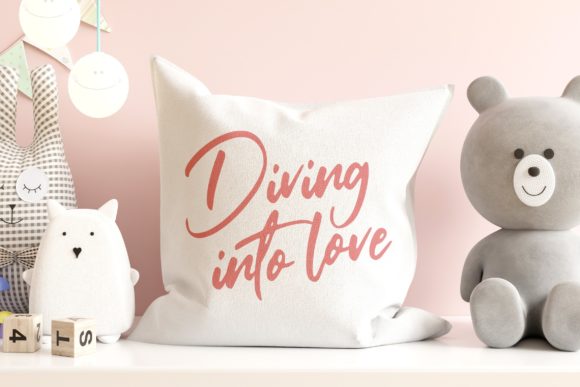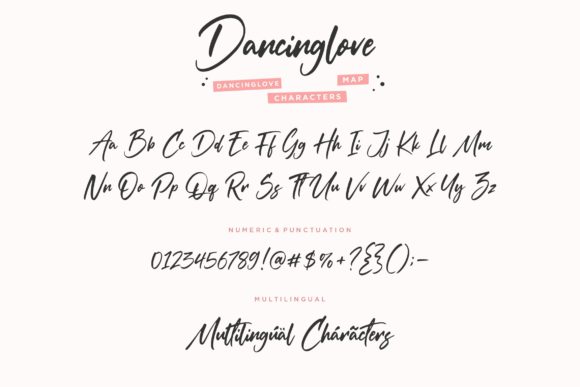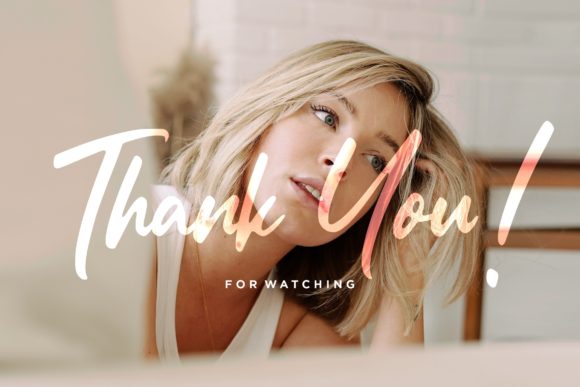
Introduction to Dancinglove Font
As designers, we’ve all had those moments when we stumble upon the perfect font for our creative project. It’s like the missing piece to a puzzle, and suddenly everything falls into place. For me, that moment came when I discovered the Dancinglove Font. This elegant handwritten font is a game-changer for any design project that requires a touch of personality and whimsy.
| 📌 Product Name | Dancinglove Font |
| 👤 Author | Balpirick |
With its beautiful, flowing script, the Dancinglove Font is perfect for adding a personal touch to wedding invitations, thank you cards, and other special occasion designs. Its high-quality design makes it a valuable resource for designers, and the fact that it can be downloaded for free is just the icing on the cake.
Whether you’re working on a high-end branding project or a simple greeting card, the Dancinglove Font is sure to bring a touch of sophistication and elegance to your design.
Key Features of Dancinglove Font
- High-quality design: The Dancinglove Font is a unique and stylish font, perfect for creative projects that require a touch of elegance and sophistication.
- Transparent background: The Dancinglove Font features a transparent background, allowing users to easily layer it over other design elements and create a seamless look.
- Large character set: The Dancinglove Font includes a large character set, including uppercase and lowercase letters, numbers, and special characters, making it suitable for a wide range of creative projects.
- High resolution: The font is designed at a high resolution of 300 DPI, ensuring that it looks crisp and clear on both digital and print materials.
- Perfect for creative projects: The Dancinglove Font is ideal for designers, artists, and creatives who are working on projects that require a unique and stylish font, such as logos, branding materials, and marketing collateral.
Honest Review: Dancinglove Font
I recently stumbled upon the Dancinglove Font, and I must say it’s been a delightful discovery. This font is perfect for creative projects that need a touch of whimsy and playfulness.
What works well: ✨ The Dancinglove Font offers a wide range of styles and weights, making it an excellent choice for designers looking to add some variety to their designs. The font also features a transparent background, which makes it easy to customize and integrate into any design project.
- Wide range of styles and weights
Limitations: ⚠️ While the Dancinglove Font is an excellent choice for many design projects, it may not be suitable for more formal or professional designs. The font’s playful nature may not be suitable for projects that require a more serious tone.
Overall impression: I’m thoroughly impressed with the Dancinglove Font, and I highly recommend it to designers looking for a fun and versatile font for their creative projects.
Tips for Getting the Most Out of the Dancinglove Font
Use the Dancinglove Font in conjunction with other high-quality design resources to create visually stunning designs.
Experiment with different font sizes, colors, and alignments to add depth and interest to your designs.